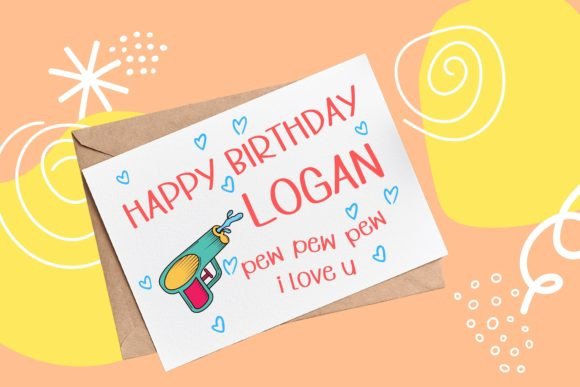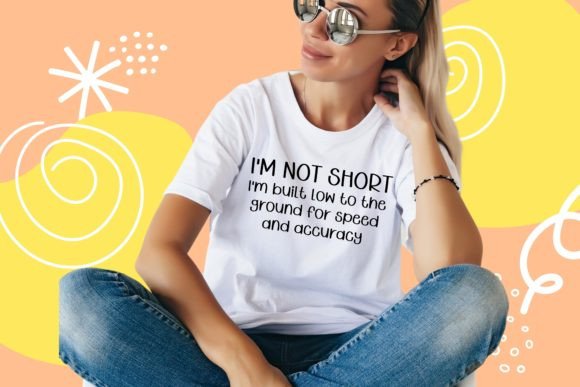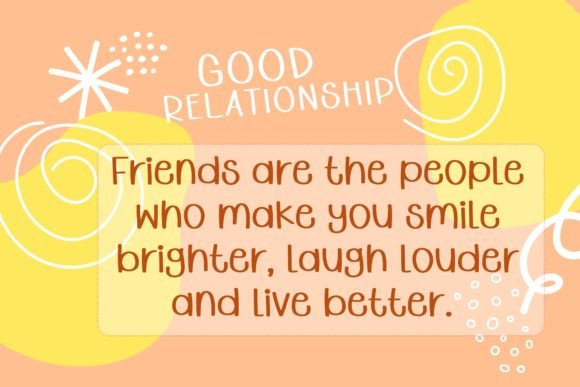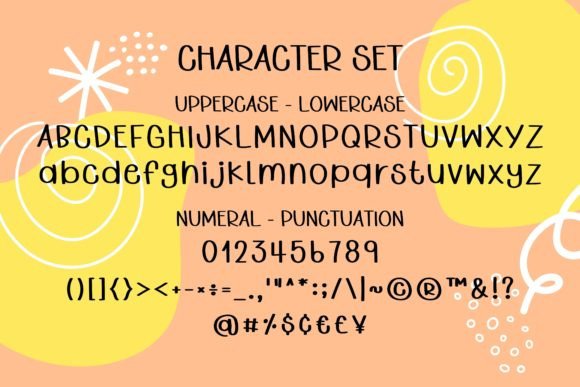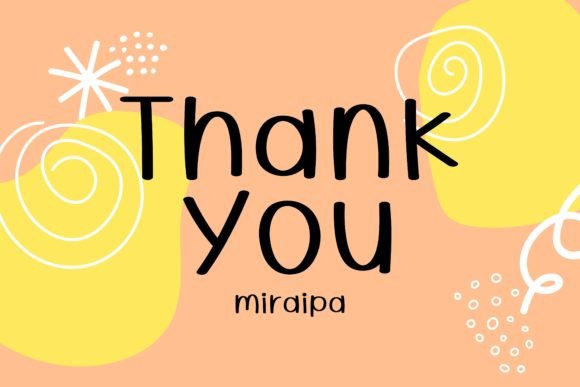
Introducing Happy Morning Font: The Perfect Addition to Your Design Arsenal
Are you tired of using the same old fonts in your design projects? Look no further! We’re excited to introduce Happy Morning Font, a delightful handwritten sans serif font that’s sure to bring a touch of friendliness and whimsy to your creations. In this article, we’ll dive into the features and benefits of Happy Morning Font, and explore the many ways you can use it to elevate your designs.
What is Happy Morning Font?
Happy Morning Font is a carefully crafted handwritten sans serif font that’s designed to be both cute and friendly. Its playful and approachable style makes it perfect for a wide range of design projects, from fun and creative endeavors to more personal and sentimental ones. Whether you’re a designer, crafter, or DIY enthusiast, Happy Morning Font is sure to become a favorite in your font library.
Key Features of Happy Morning Font
- Cute and Friendly Style: Happy Morning Font boasts a charming and approachable style that’s sure to capture the hearts of your audience.
- Handwritten Sans Serif: This font’s handwritten sans serif style gives it a unique and personal touch that’s perfect for a wide range of design projects.
- Versatile and Flexible: Happy Morning Font can be used for both digital and print projects, making it a versatile addition to your font library.
Perfect for Fun and Creative Projects
Happy Morning Font is ideal for designers and crafters who enjoy working on fun and creative projects. Its playful style makes it perfect for:
- Easter and Spring Designs: Add a touch of whimsy to your Easter and spring-themed designs with Happy Morning Font.
- Back to School and Education: Use Happy Morning Font to create engaging and interactive educational materials, such as worksheets, posters, and presentations.
- Weddings and Celebrations: Bring a touch of friendliness and joy to your wedding and celebration designs, such as invitations, decorations, and party favors.
- Party Decorations and Invitations: Create eye-catching party decorations and invitations with Happy Morning Font’s playful and festive style.
Beyond Fun and Games: Using Happy Morning Font for Other Projects
While Happy Morning Font is perfect for fun and creative projects, its versatility extends far beyond. You can also use it for:
- Fall and Autumn Designs: Add a warm and cozy touch to your fall and autumn-themed designs with Happy Morning Font.
- Halloween and Spooky Designs: Use Happy Morning Font to create playful and spooky designs for Halloween and other celebrations.
- Christmas and Holiday Designs: Bring a touch of joy and festivity to your Christmas and holiday designs with Happy Morning Font.
- Posters and Flyers: Use Happy Morning Font to create eye-catching posters and flyers for events, promotions, and announcements.
- Blogs and Social Media: Add a personal touch to your blog and social media posts with Happy Morning Font’s friendly and approachable style.
- Clothing and Merchandise: Use Happy Morning Font to create fun and playful designs for clothing, accessories, and merchandise.
- Child-Related Designs: Happy Morning Font is perfect for designing materials for children, such as children’s books, educational resources, and kids’ party decorations.
- Greeting Cards and Stationery: Add a touch of friendliness and whimsy to your greeting cards and stationery with Happy Morning Font.
Why Choose Happy Morning Font?
With so many fonts available, why choose Happy Morning Font? Here are just a few reasons:
- Unique and Distinctive Style: Happy Morning Font’s handwritten sans serif style sets it apart from other fonts, making it a great choice for designers who want to stand out.
- Easy to Read and Use: Happy Morning Font is clear, legible, and easy to use, making it perfect for a wide range of design projects.
- Time-Saving and Convenient: With Happy Morning Font, you can create professional-looking designs in no time, saving you time and effort.
| Font Name | Happy Morning Font |
| Author | miraipa |
In conclusion, Happy Morning Font is a versatile and delightful addition to any designer’s font library. Its cute and friendly style, combined with its versatility and flexibility, make it perfect for a wide range of design projects. Whether you’re a designer, crafter, or DIY enthusiast, Happy Morning Font is sure to bring a touch of whimsy and friendliness to your creations. So why wait? Add Happy Morning Font to your font library today and start creating amazing designs!